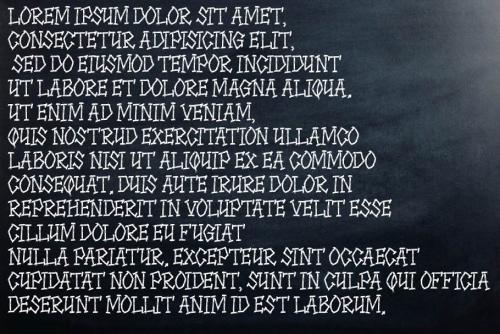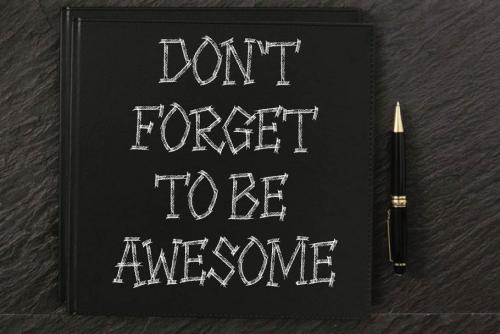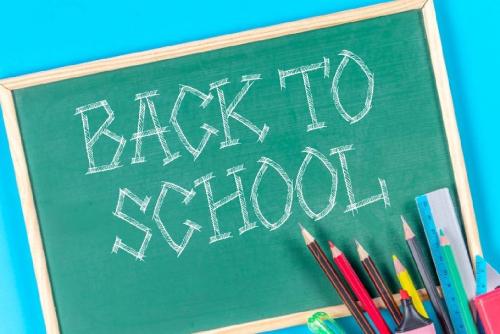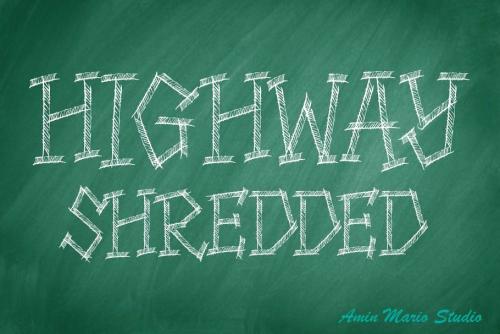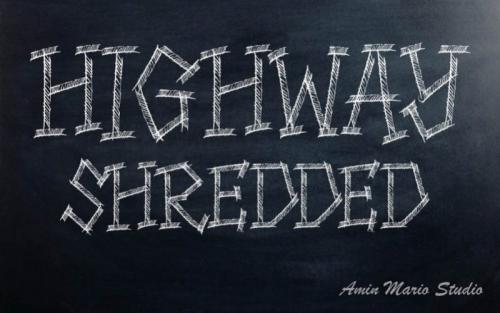
HIGHWAY SHREDDED is a brush font with unique shredded style. This font is perfect for challenging jobs, titles, quotes, packaging, t-shirt, various print or anything which needs a typographic unique style.